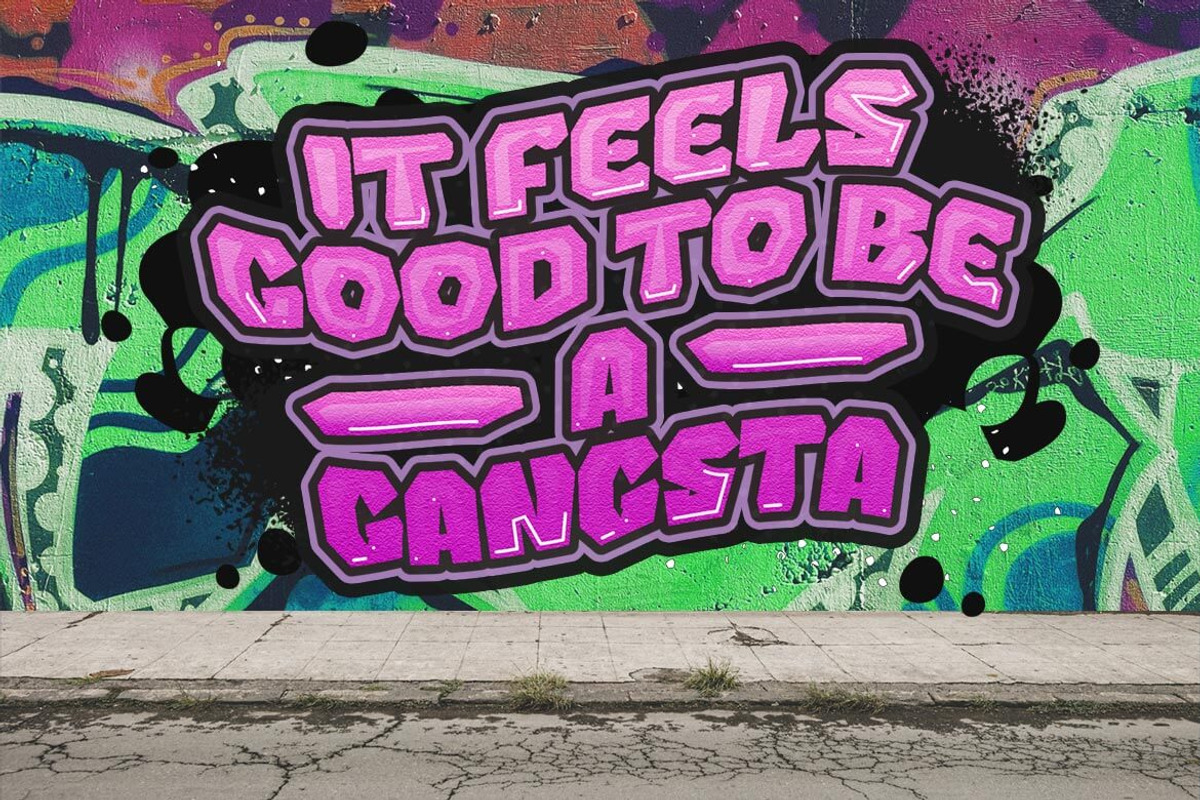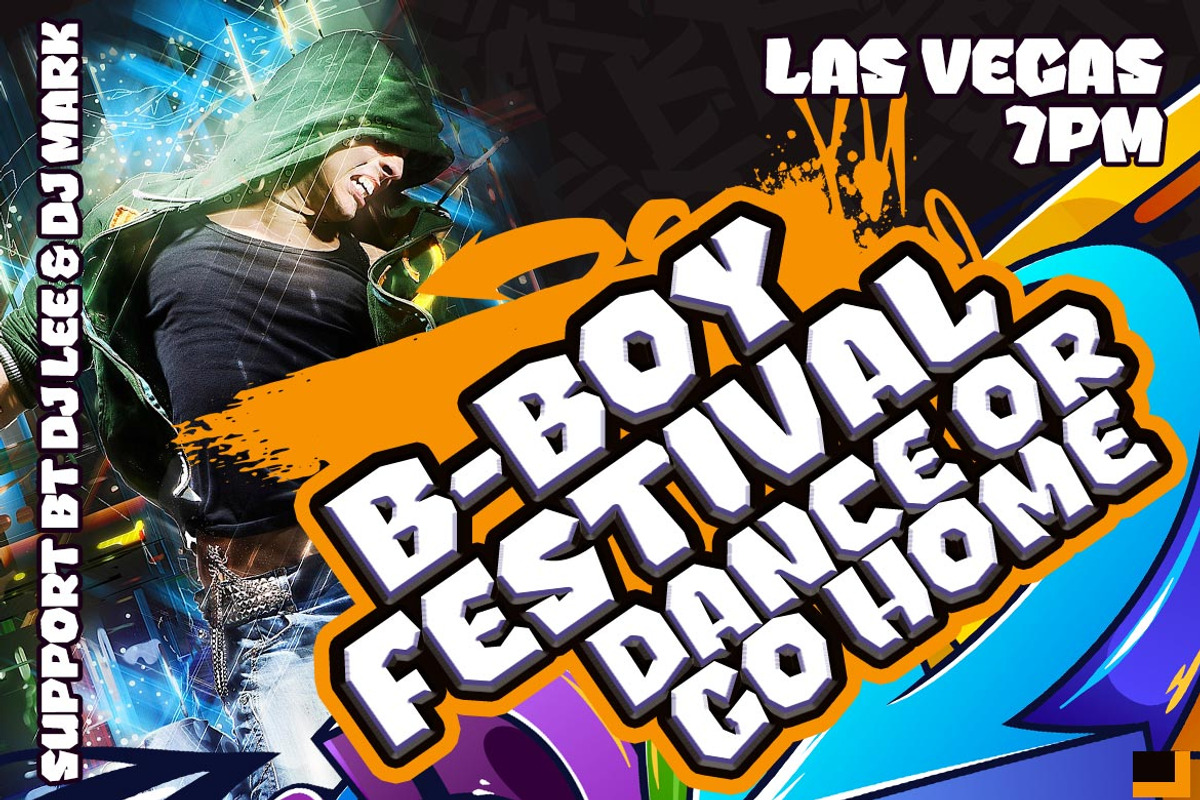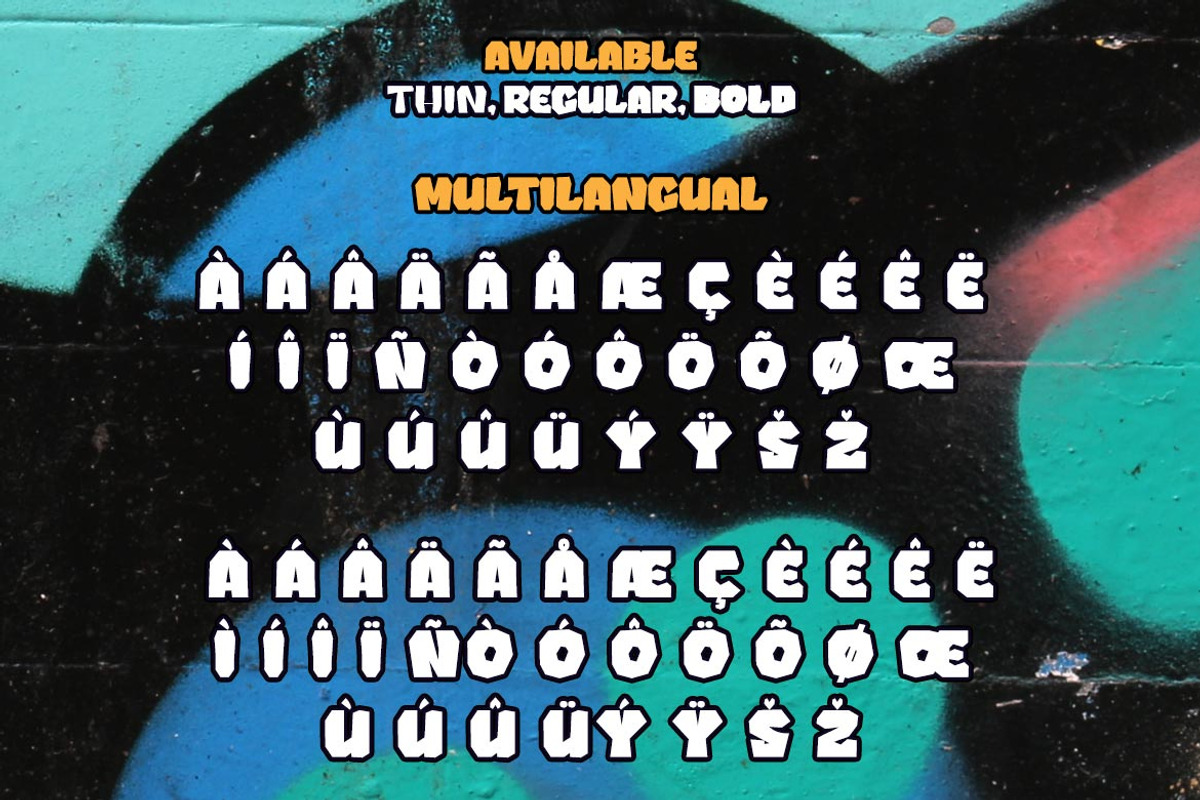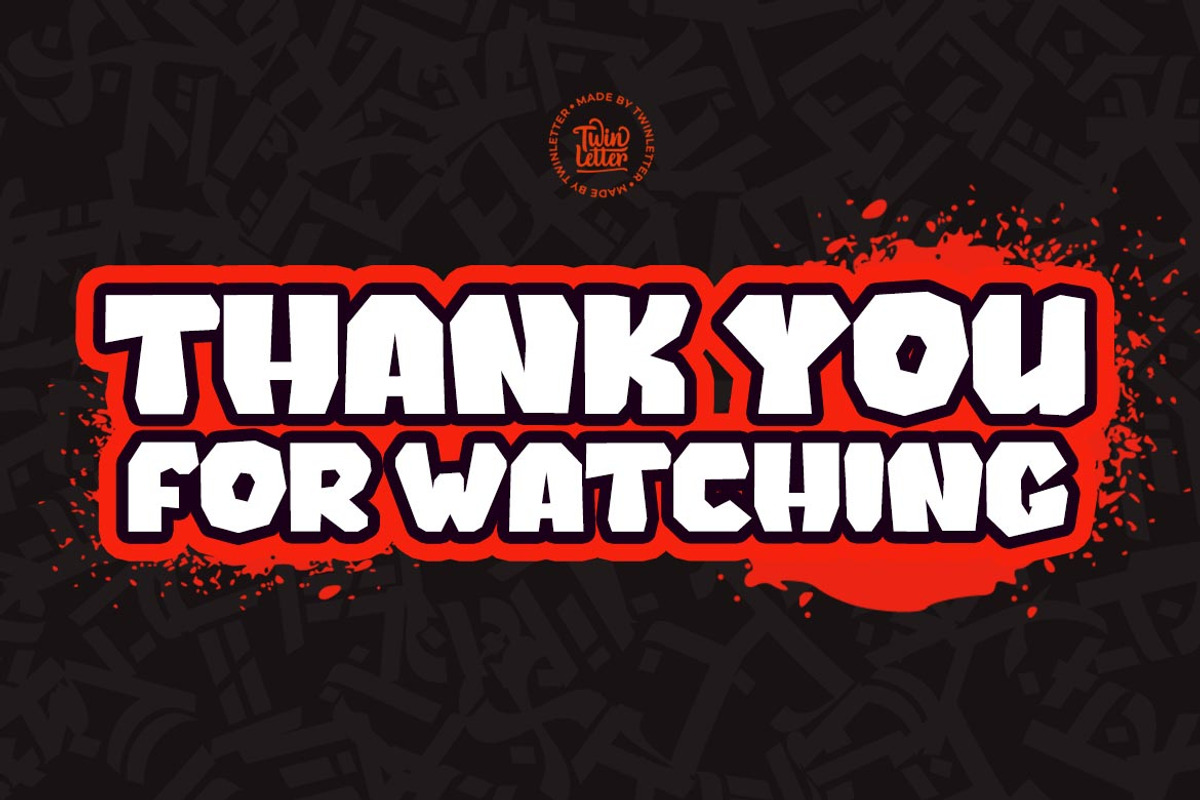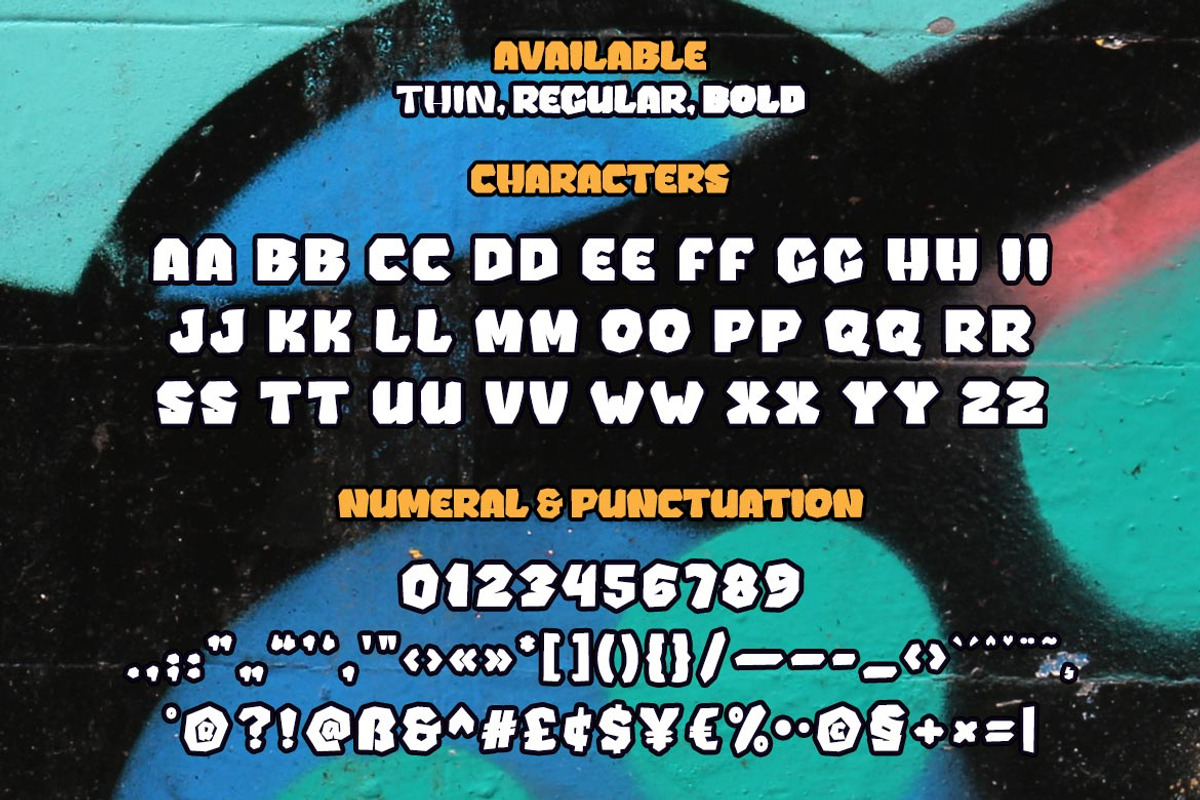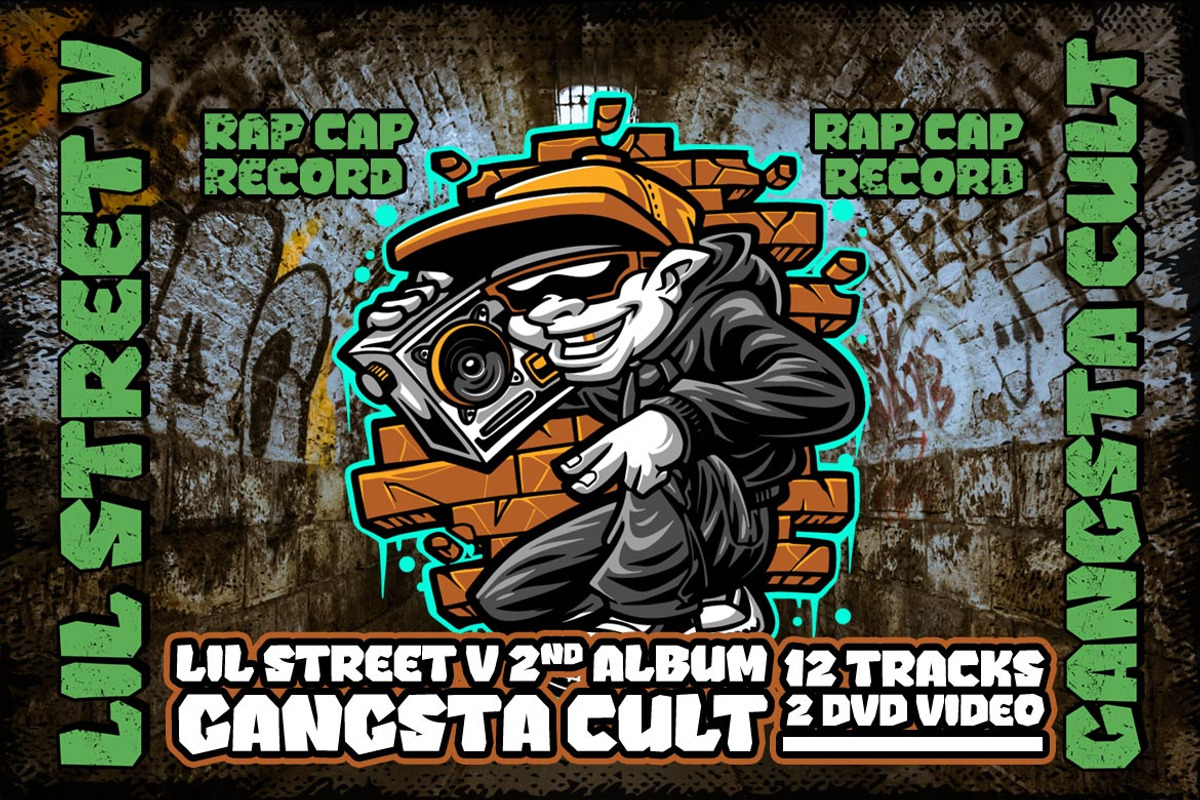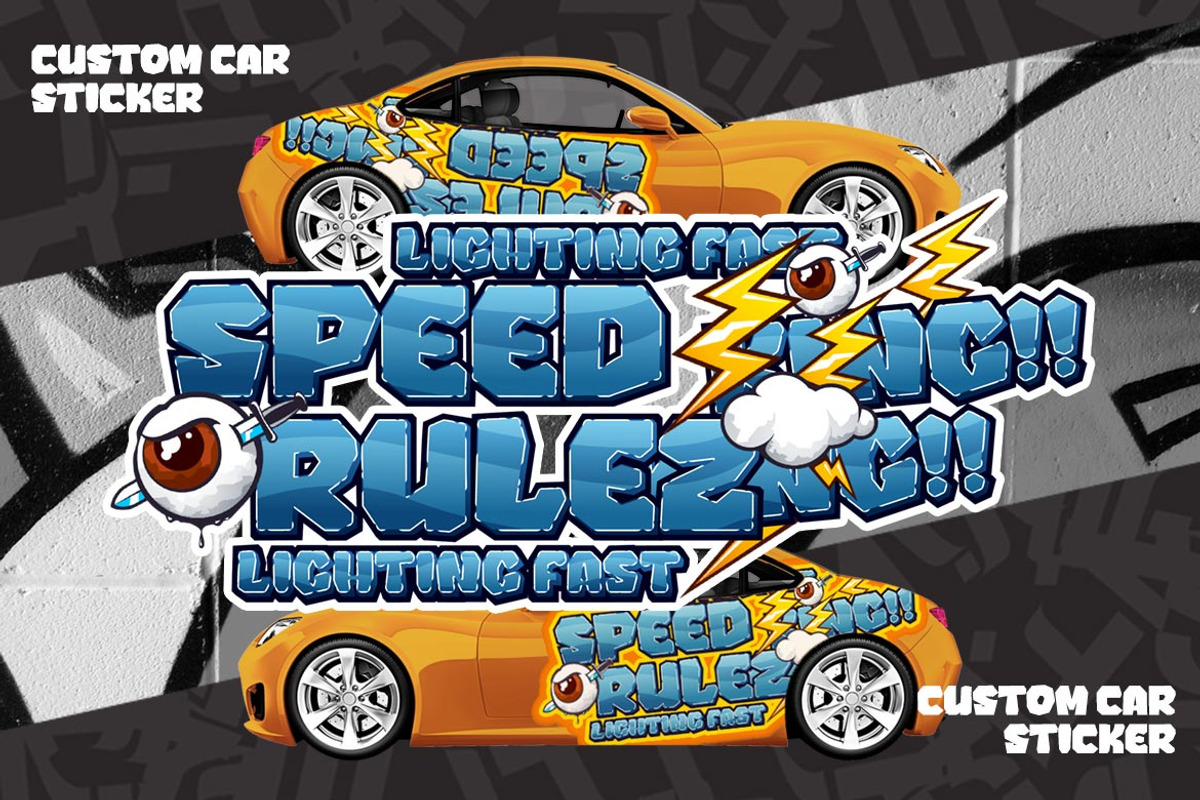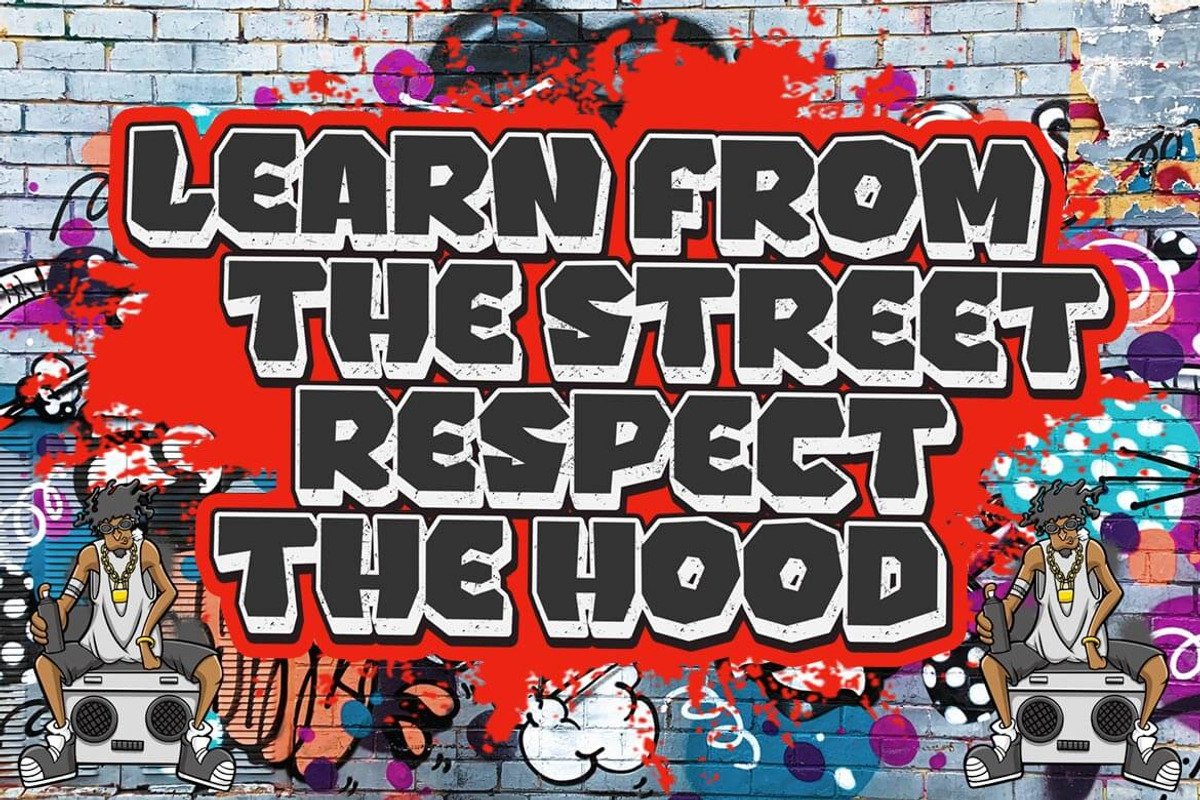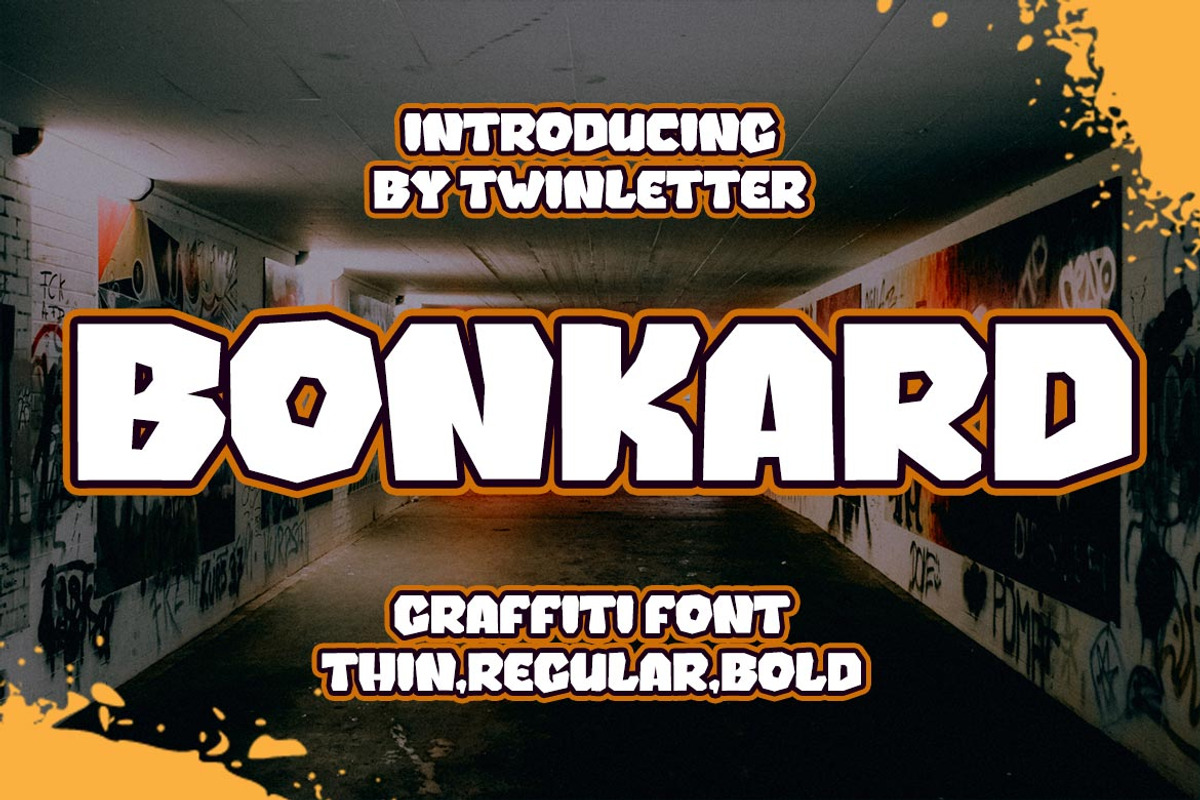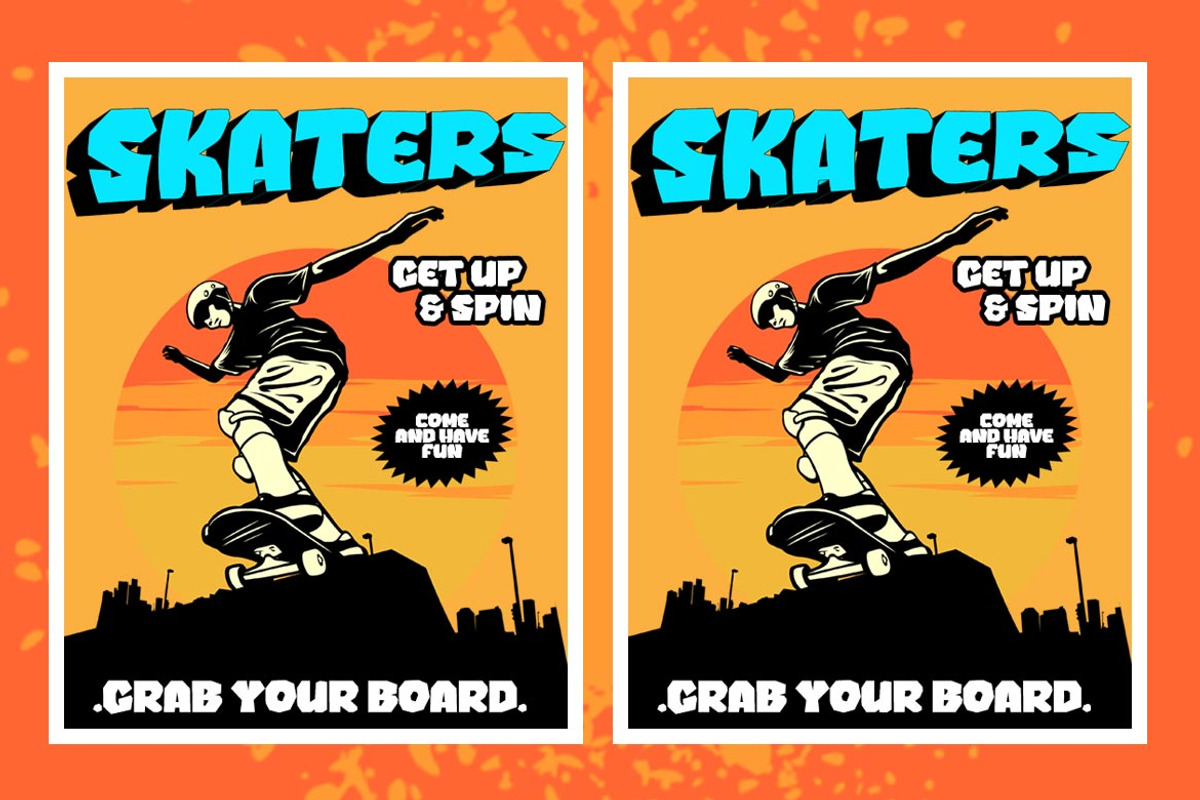
Bonkard
Bonkard is a font created with great care to meet all of your requirements. Your project will be more flawless if you use this font; everyone will think it’s attractive and charming. We completed this font with standard and thick-thin families, so you may use it for subtitles and text titles because we made it with ease and flexibility in mind for you to use in all types of special projects. Not only that, but the unique shape of each letter is something we pay close attention to so that your customers fall in love at first sight.
This graffiti font is great for product logos, poster titles, headlines, packaging, film titles, logotypes, gorgeous writing, and trendy graffiti designs, among other things.
Of course, if you utilize this font in your numerous creative projects, they will be perfect and outstanding. Use this typeface right away for your one-of-a-kind and remarkable projects.